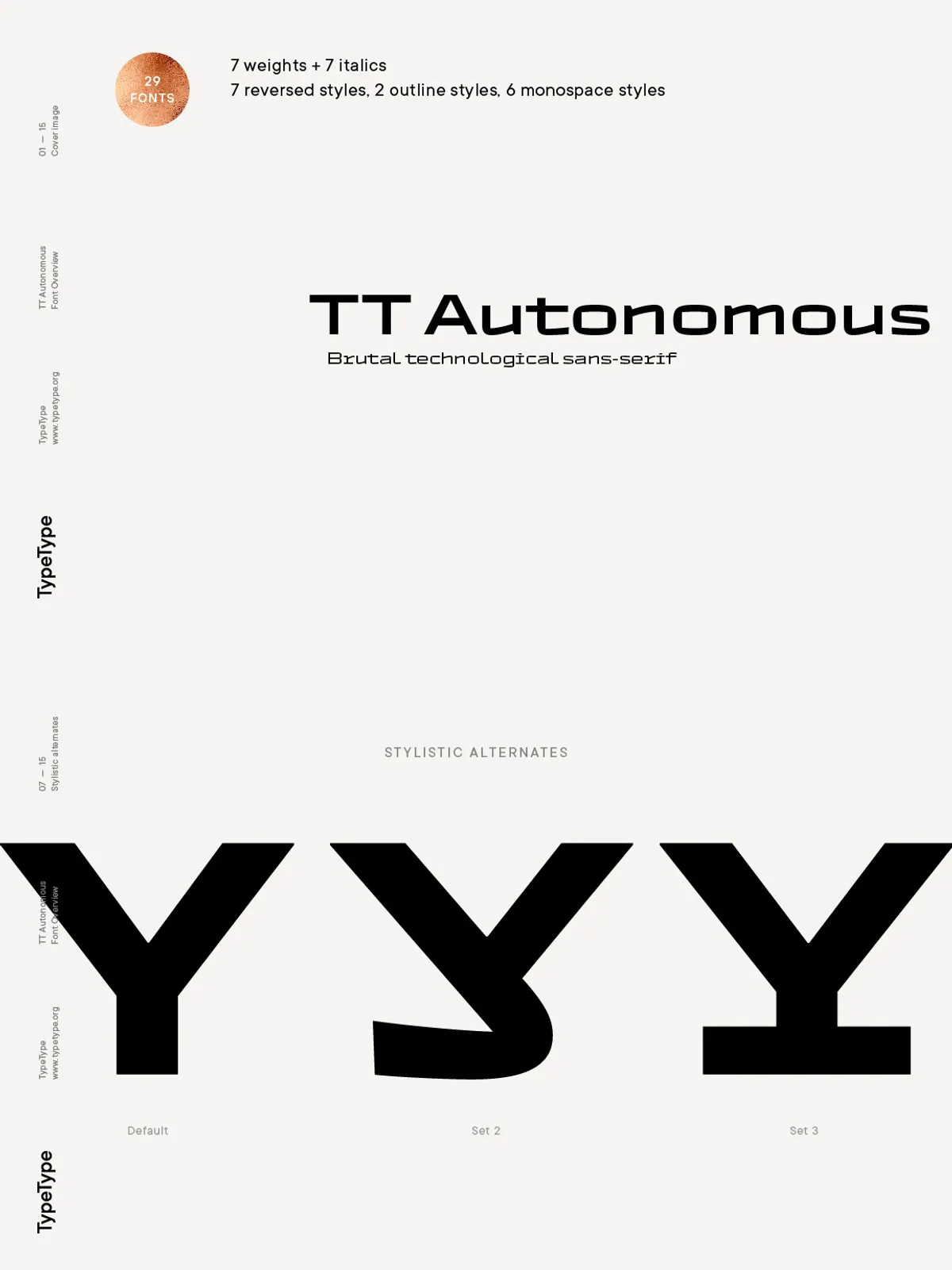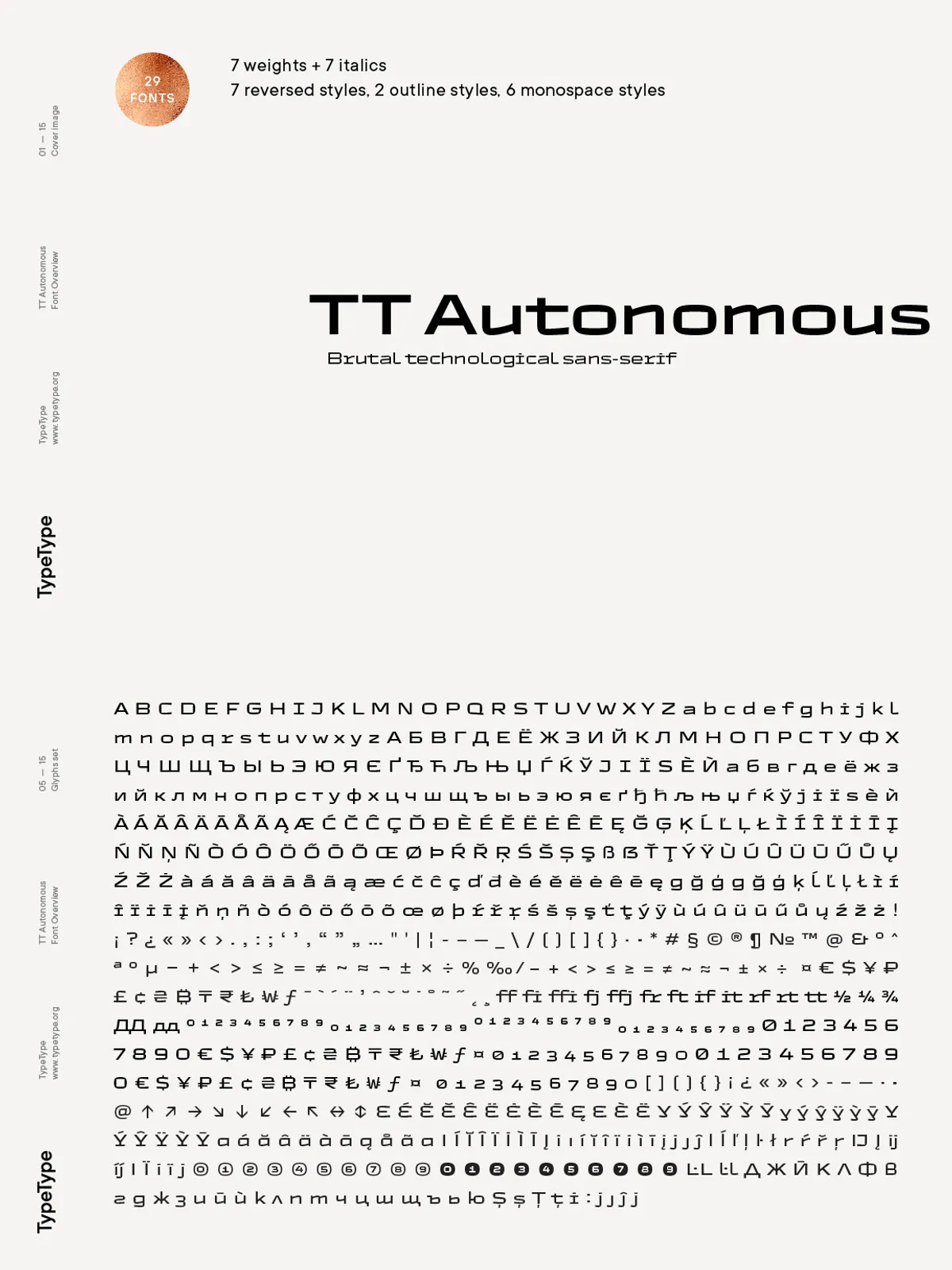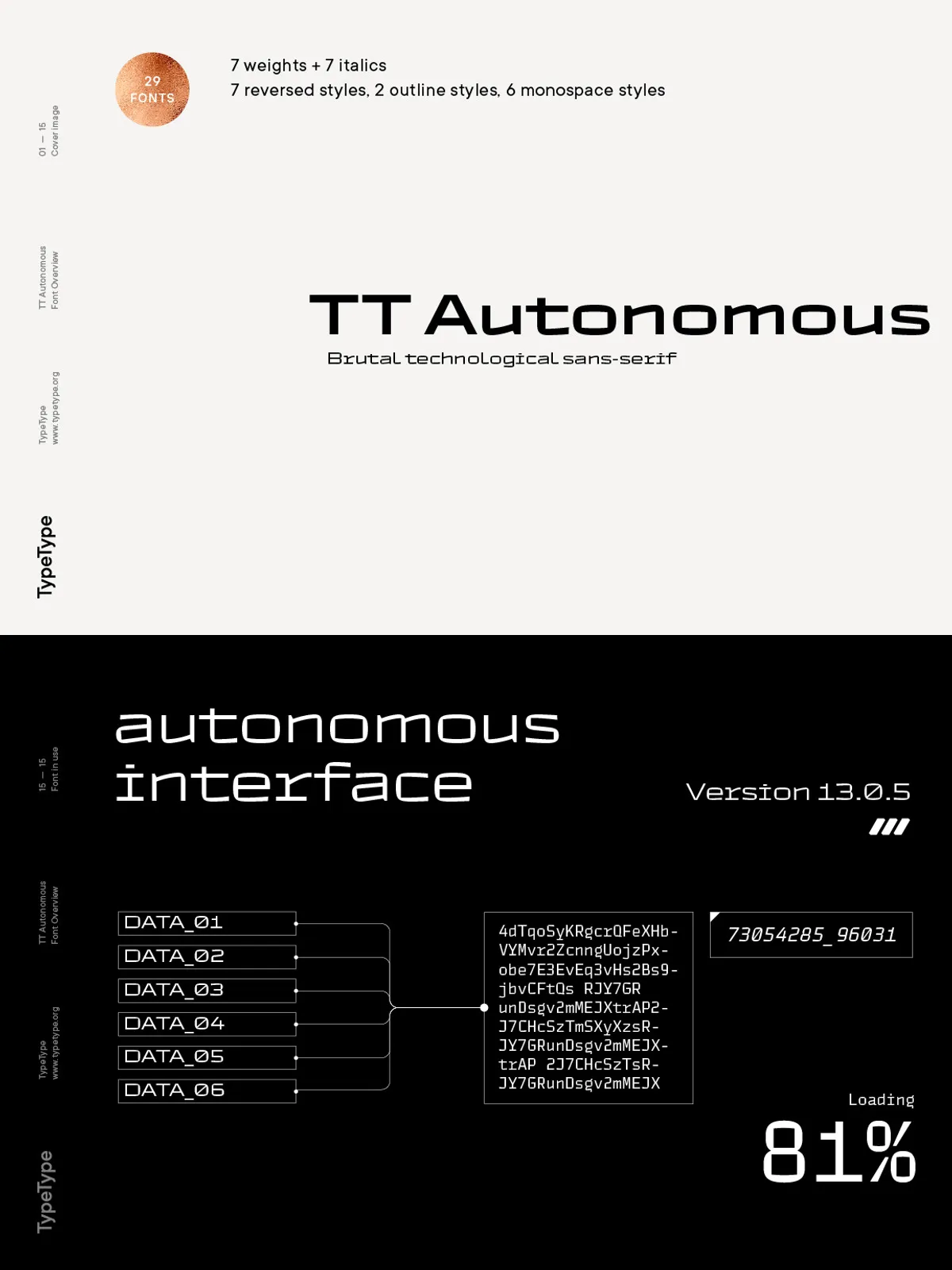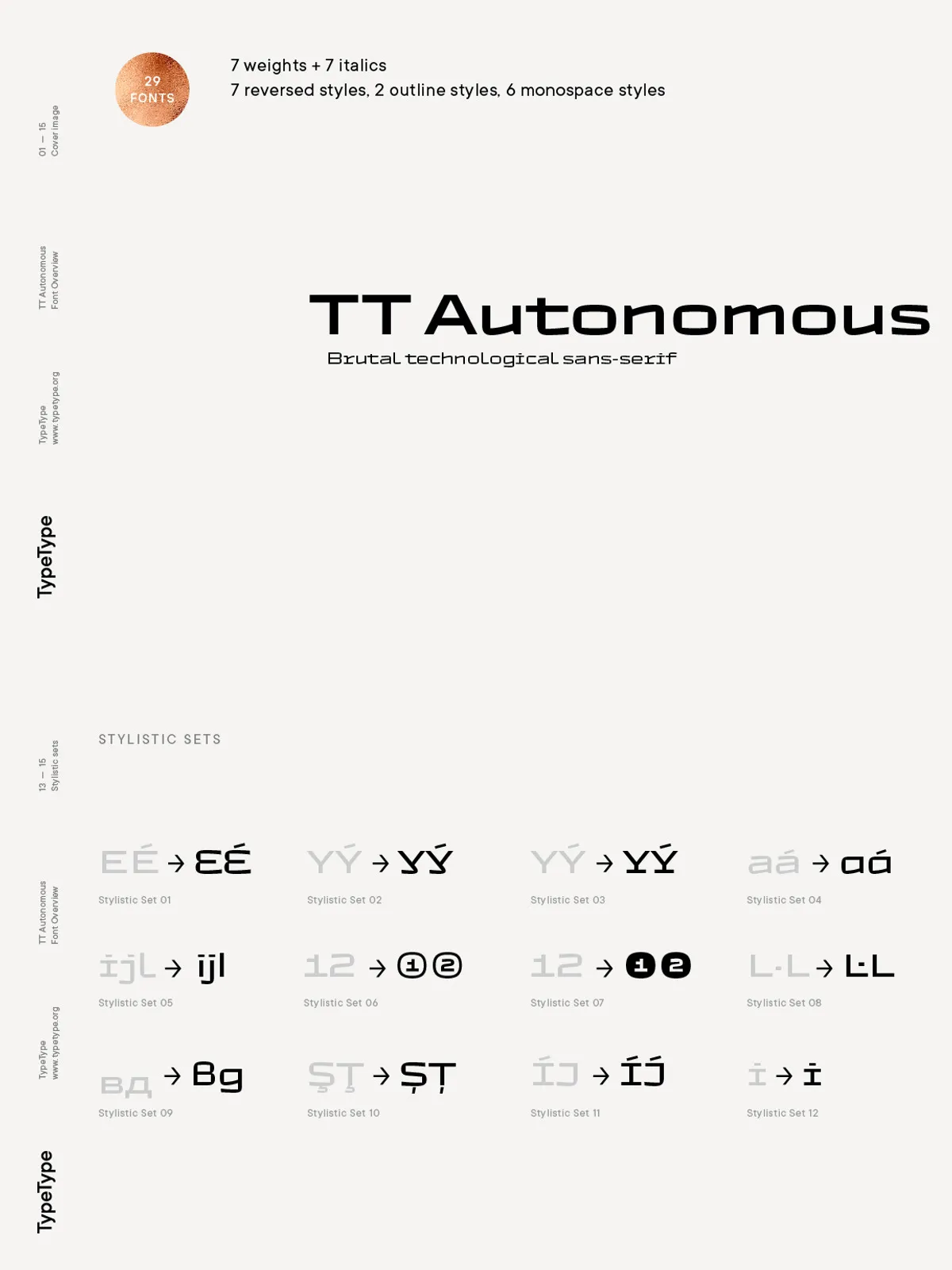
TT Autonomous delivers a bold, technological voice built for contemporary brands, interfaces, editorial layouts, and identity systems. The family emphasizes squareness and angular internal counters, creating a tactile, engineered aesthetic that reads as both progressive and robust. Designers created TT Autonomous to embody the visual language of autonomous electric transport and contemporary mobility while remaining practical for diverse design tasks.
TT Autonomous in numbers
Styles, glyphs, languages, and features
The family includes 29 styles: 14 regular styles, 6 monospaced styles, 7 reversed styles, and 2 outline styles. The basic subfamily contains 790+ glyphs, while monospaced fonts include 630+ glyphs. TT Autonomous supports 183 languages and exposes 28 OpenType features — including ligatures, alternate characters, slashed zero, old-style figures, and 12 stylistic sets — to give you typographic control at every size and context.
Design story
Inspiration and intent
The idea for TT Autonomous began during a ride in an electric autonomous taxi at Schiphol Airport in Amsterdam. That moment prompted a question: what kind of type would represent autonomous electric transport? The team pursued a wide, slightly mechanical sans-serif whose proportions nod to automobile logotypes. From that seed, they expanded the theme into a full family that expresses technological confidence through squared shapes and engineered spacing.
Monospaced subfamily
Why a monospace was added
Recognizing that code lines for autonomous systems often display in monospaced fonts, the designers introduced a dedicated monospaced subfamily. They preserved the main family’s squared character while ensuring true monospace metrics. The result: a distinctive monospace with consistent rhythm and highly readable forms, and oblique monospaced styles that function as genuine italics rather than slanted romans.
Outline and reversed styles
Display-ready variations
TT Autonomous includes two outline styles tailored for large-scale headlines and titles. Unlike outlines generated in graphic editors, these fonts received careful refinement to eliminate narrow or unstable areas so they render crisply in production. The seven reversed styles expand creative options for high-contrast layouts, signage, and motion graphics where inverted fills and negative-space play a key role.
Technical details
Character set and OpenType features
The family ships with comprehensive Latin coverage and extended glyph sets in its principal styles. OpenType features include discretionary ligatures, stylistic alternates, old-style figures, tabular figures, and slashed zeroes. Designers can enable stylistic sets to tune personality or activate tabular figures for data-heavy interfaces and dashboards.
Language support
Global readiness
TT Autonomous supports a broad set of languages (183 in total), including Cyrillic variants. The family accommodates multilingual projects in branding, UI localization, editorial publishing, and wayfinding systems. For the full language list and specifics, refer to the family’s product page for exact coverage and glyph counts. More details and specimens are available on the foundry page: [TT Autonomous – Adobe Fonts](https://fonts.adobe.com/fonts/tt-autonomous).
Use cases and pairing recommendations
Where TT Autonomous excels
Use TT Autonomous for headlines, logotypes, packaging, tech branding, vehicle identity, editorial covers, posters, and interface headers. Its engineered geometry and wide proportions make it ideal for creating a strong visual presence. Pair the family with a neutral humanist sans or a restrained serif for extended body text to balance personality and readability. For data-driven UIs, prefer the tabular figure sets from the monospaced subfamily.